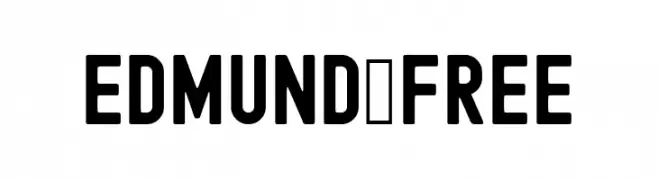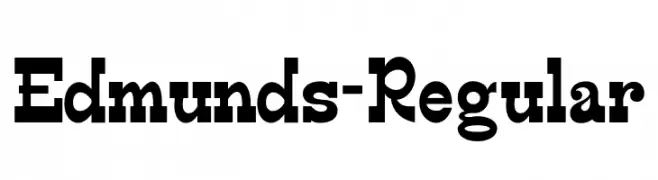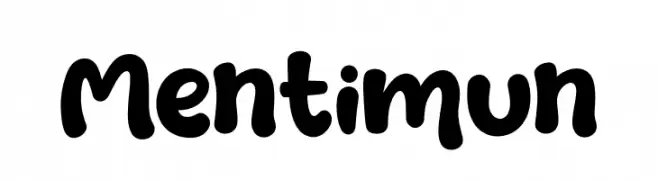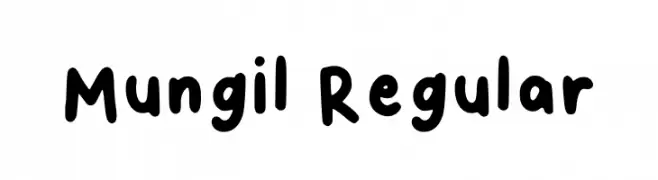
A bold, geometric font with a futuristic and angular design.
A casual, handwritten font with an architectural flair.
A playful, rounded font with a hand-drawn feel and consistent weight.
A playful, chunky font with a hand-drawn, whimsical style.
A bold, energetic script font with a playful, handwritten style.
A dynamic and elegant script font with fluid, cursive strokes.
A bold, geometric sans-serif font with uniform strokes and a modern look.
A playful, bold font with rounded, bubbly characters ideal for creative projects.
A bold, playful font with exaggerated curves and thick strokes.
A bold, modern slab serif font with strong, block-like serifs.